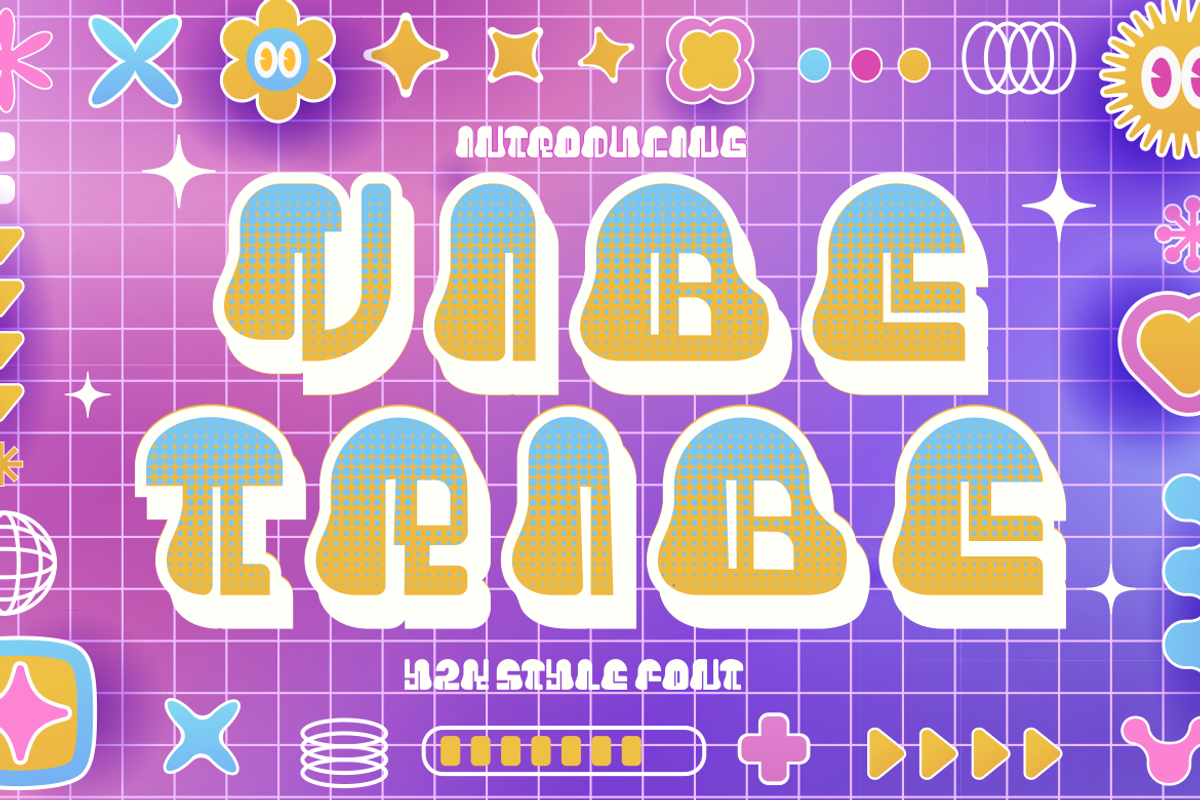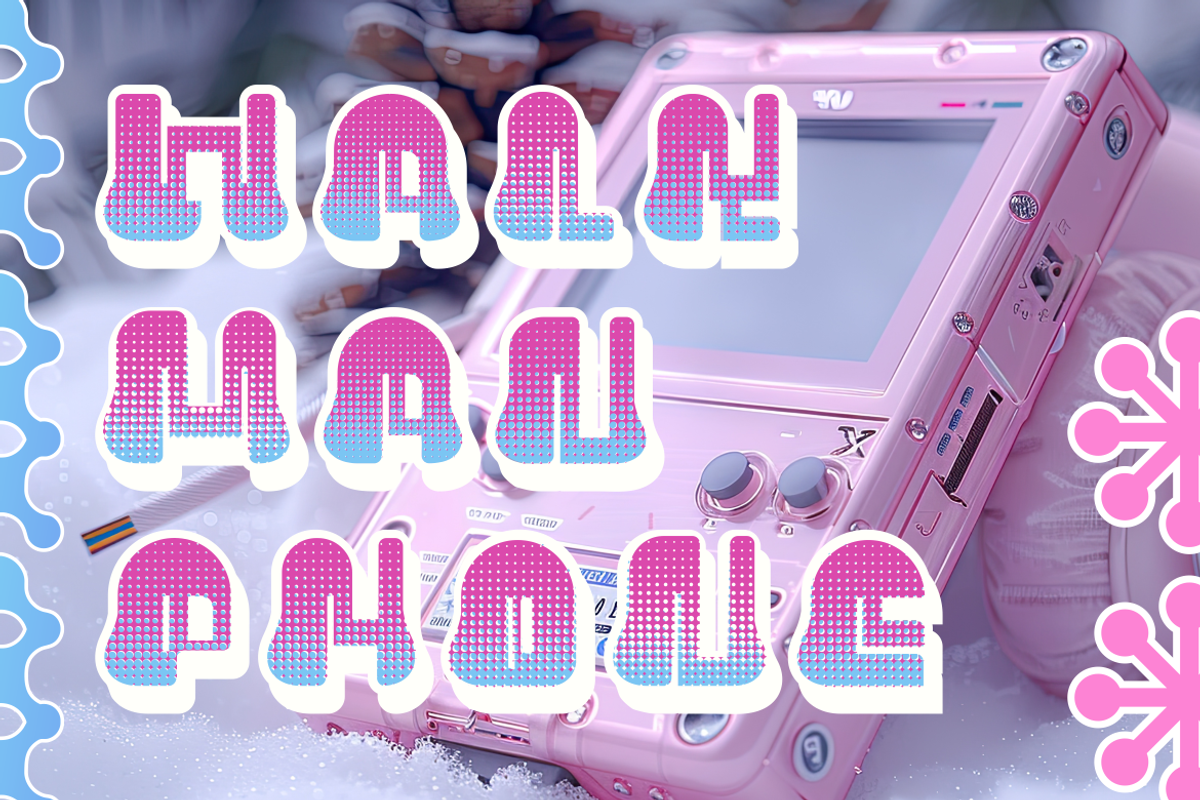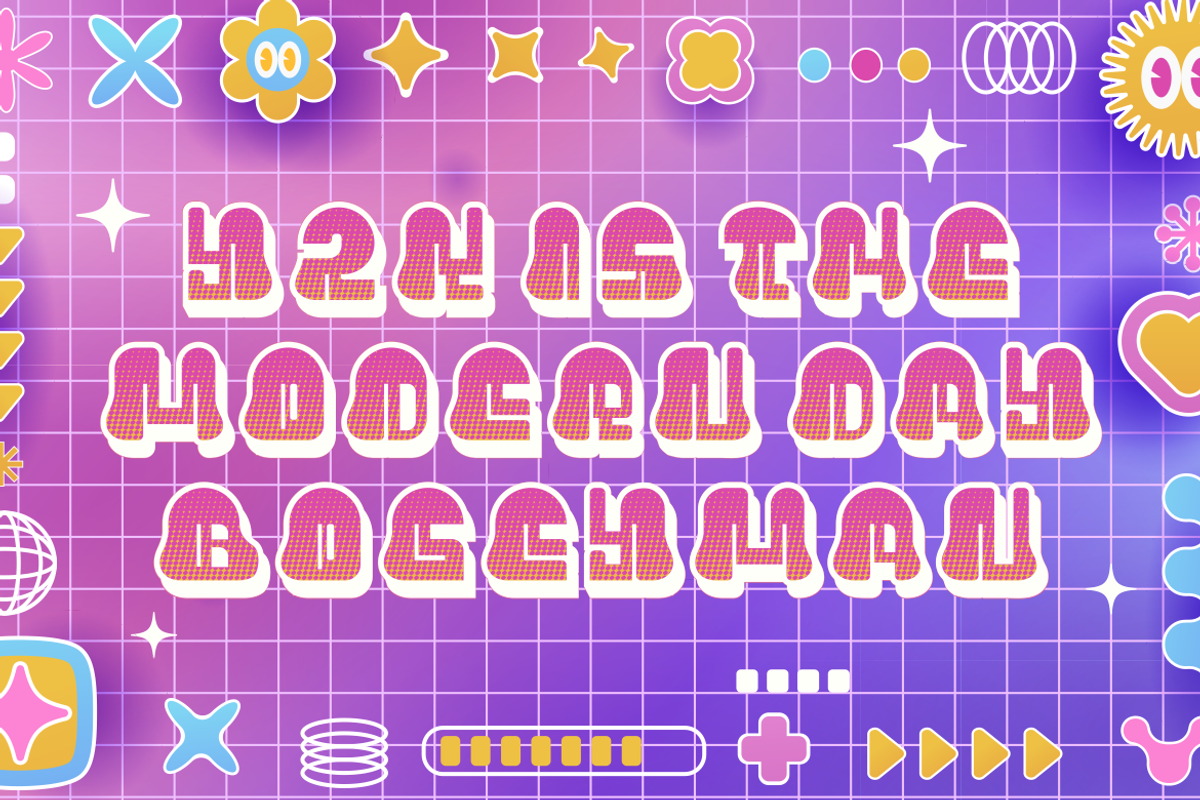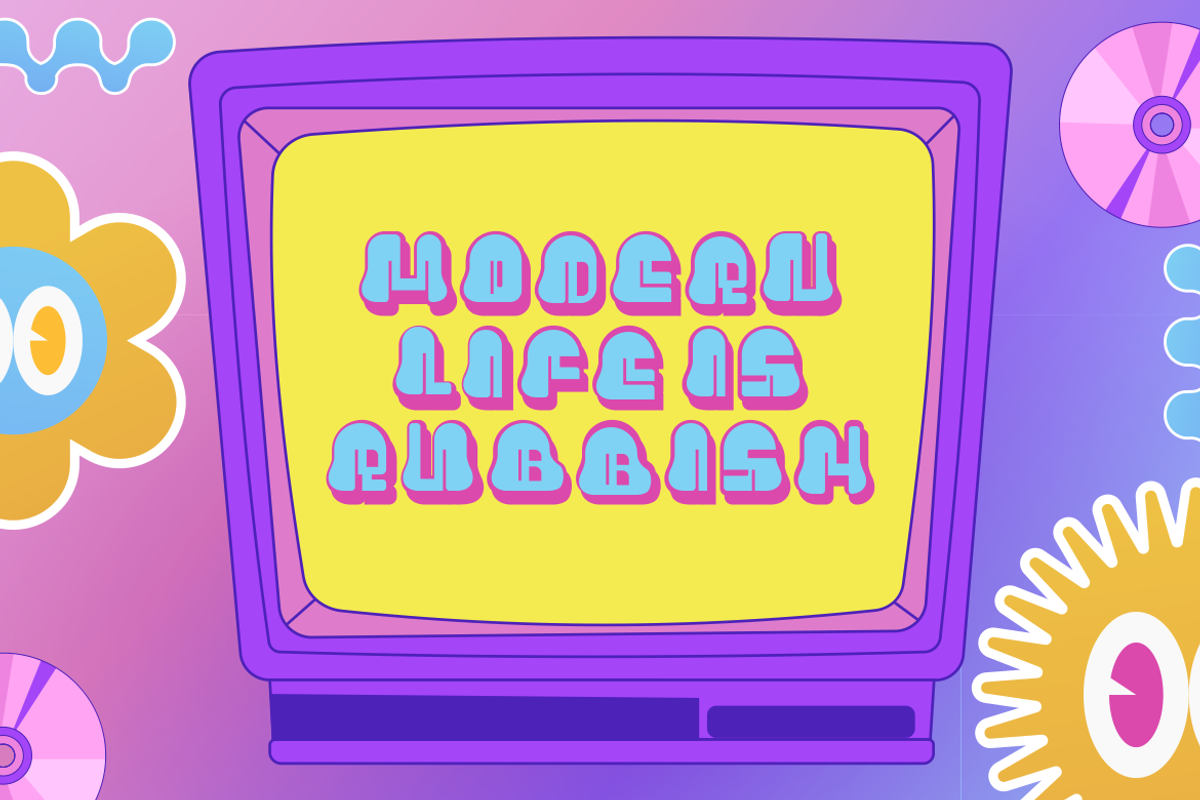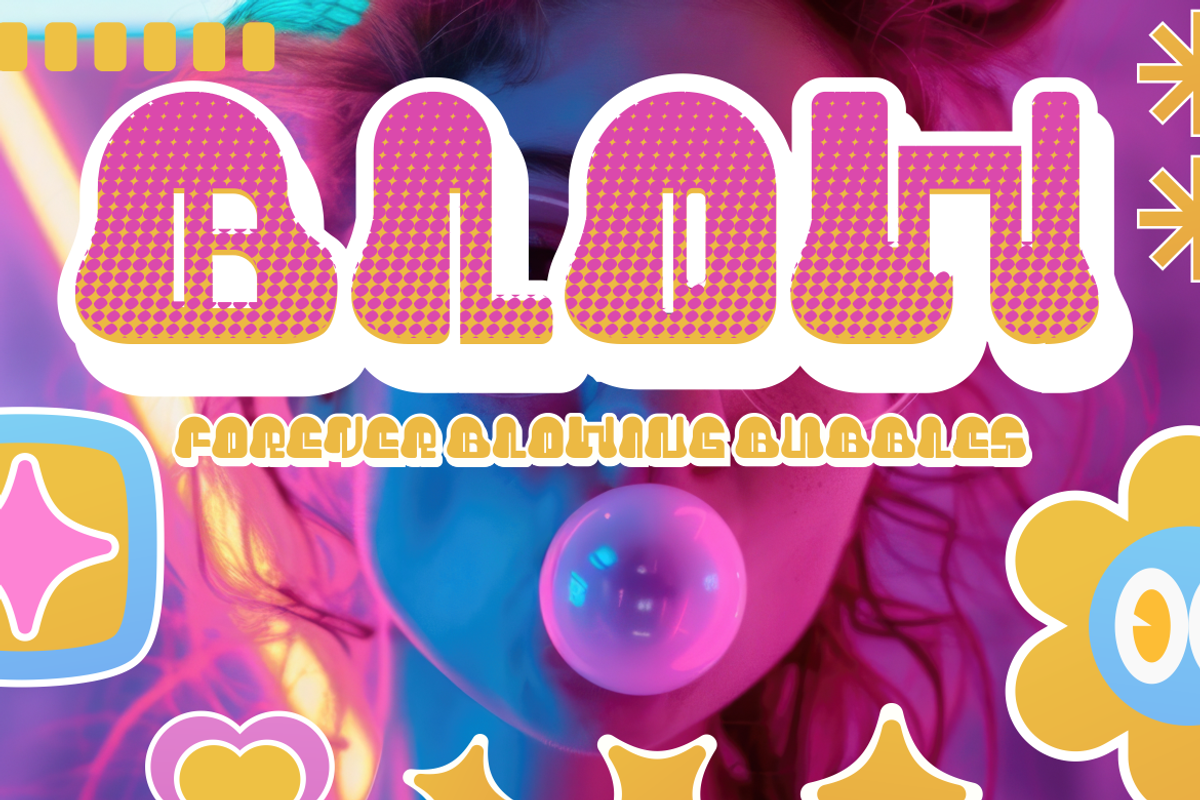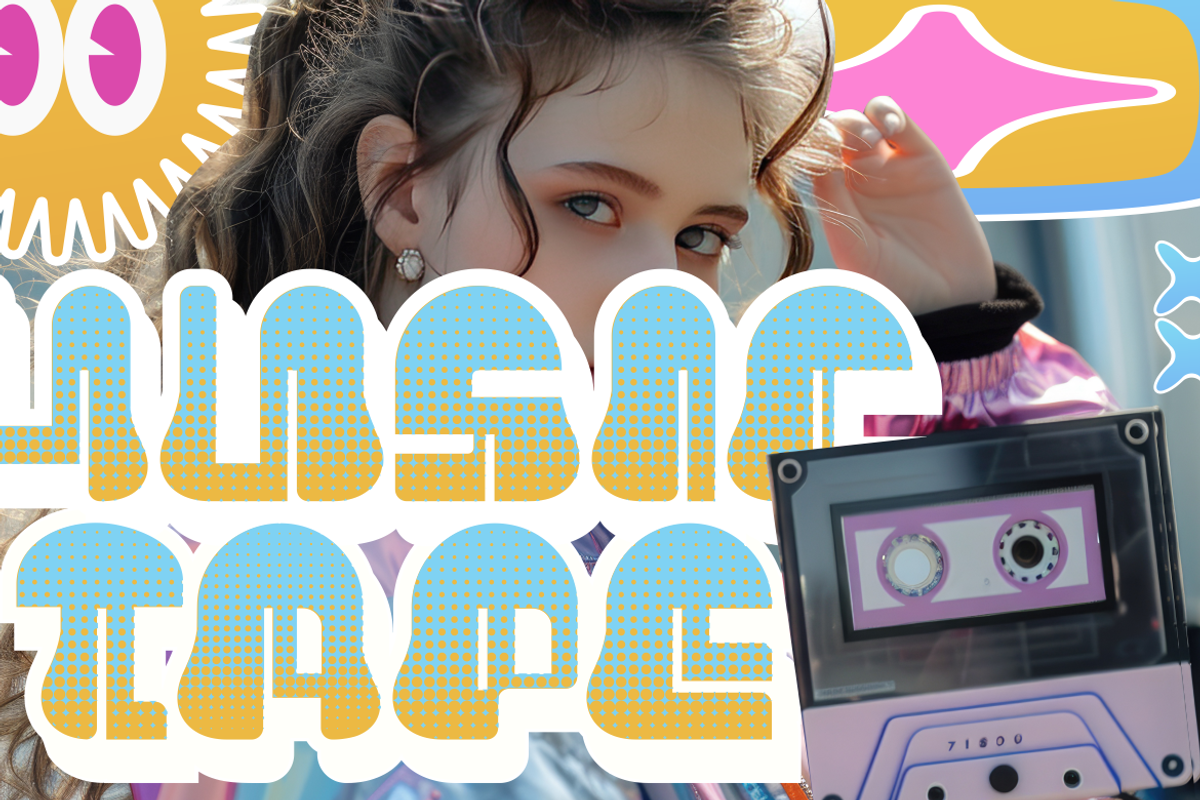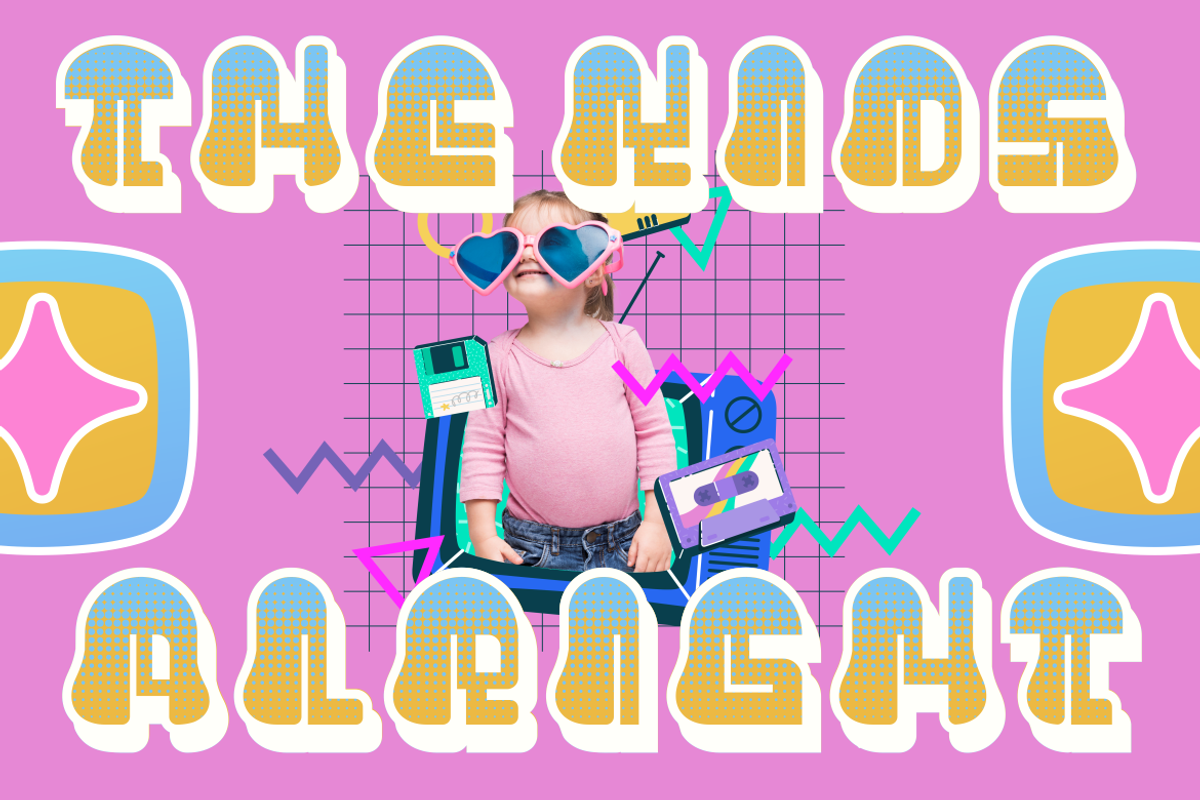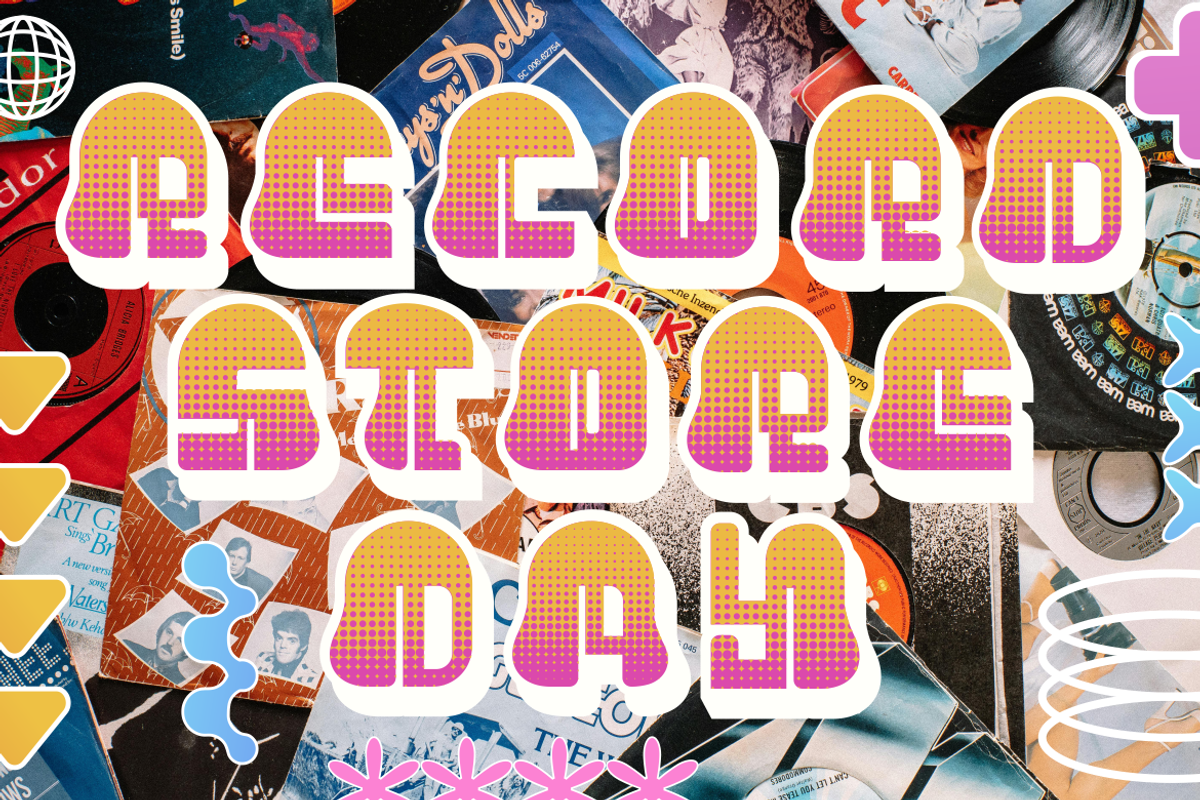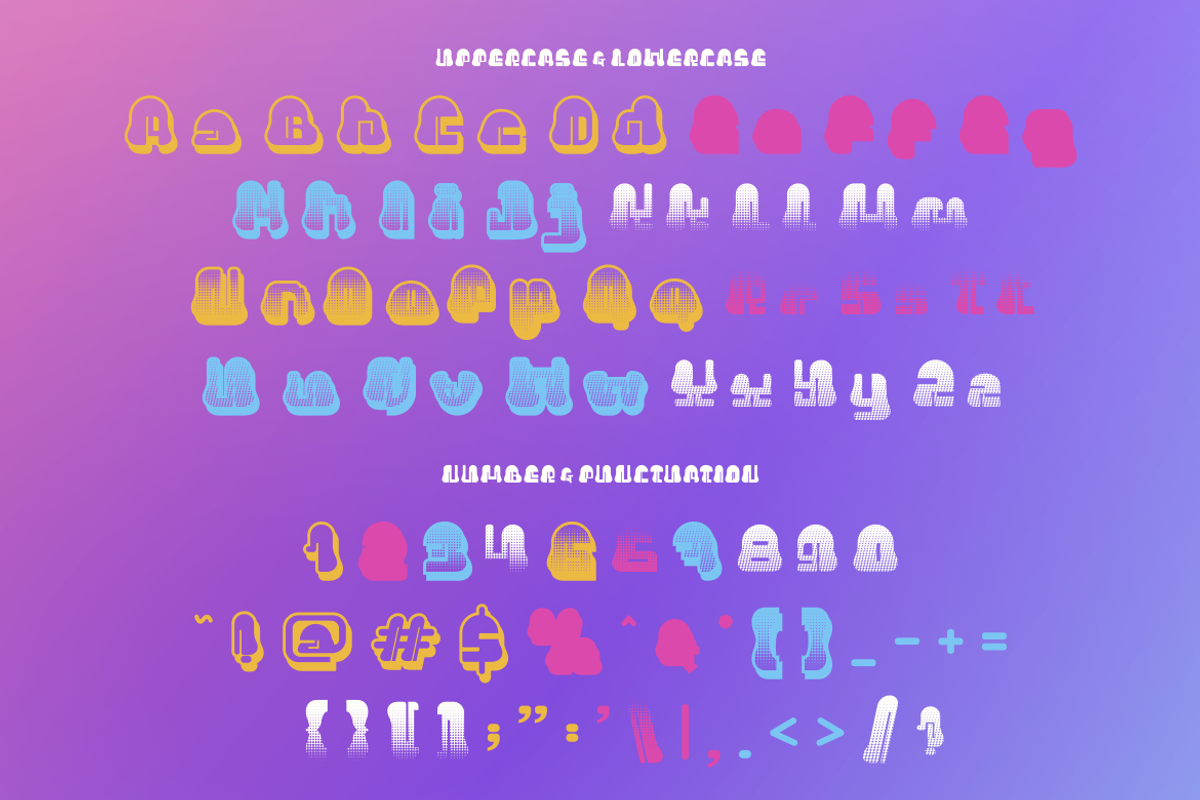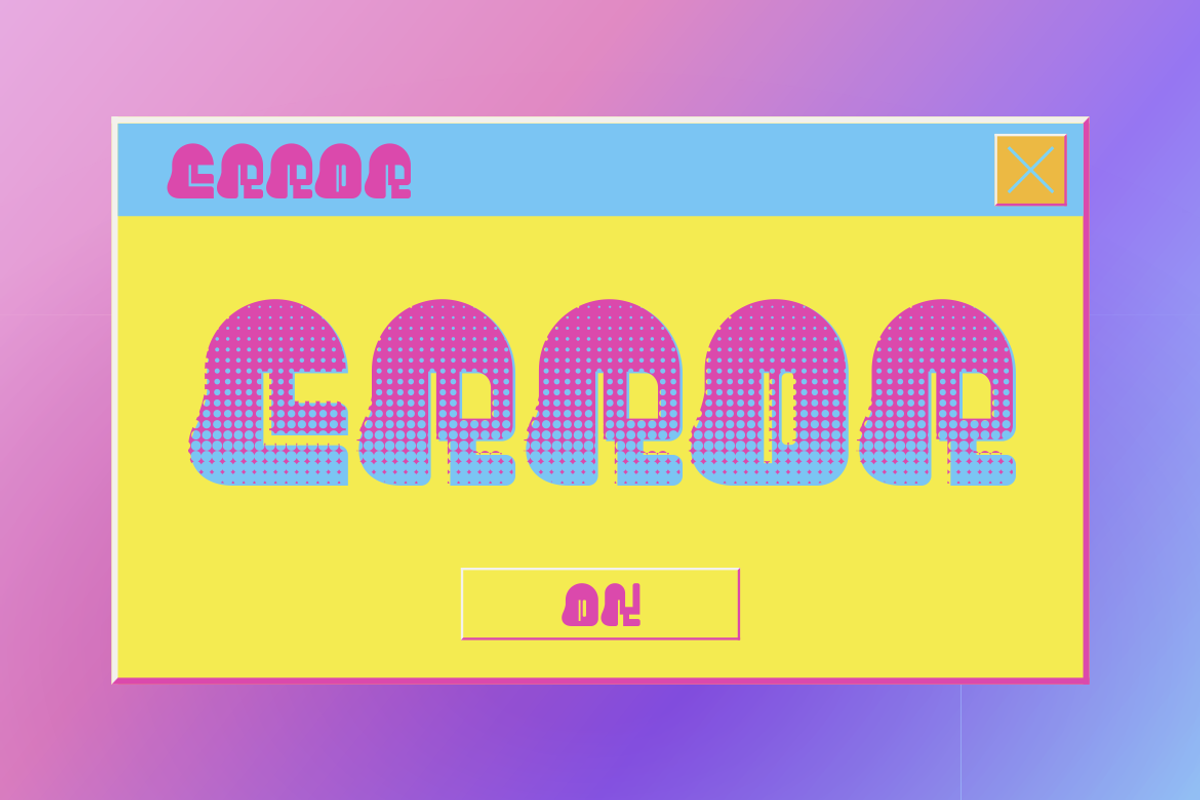
Vibe Tribe - Y2k Style Font
Introducing Vibe Tribe, a vibrant and energetic Y2K-style font that embodies the playful, futuristic, and colorful spirit of the early 2000s. With its bold, rounded forms and eye-catching gradient effects, this font is perfect for designs that need to stand out with a modern yet nostalgic vibe. The pixelated style and smooth curves make it ideal for digital projects, adding a dynamic and retro-futuristic flair to logos, posters, and branding. Its fun and futuristic look makes it a great choice for creative projects that want to capture a playful yet cutting-edge aesthetic.
Whether you're designing for packaging, crafting, or a movie title, Vibe Tribe offers versatility with its Y2K-inspired design. The font's colorful, bubbly style, combined with its modern gradient, makes it perfect for youth-centric branding, digital content, or print projects like invitations, stickers, and magazine covers. Its pixelated techno feel adds a nostalgic yet contemporary edge to any project, making it a go-to for designers looking to infuse a sense of creativity and innovation into their work.